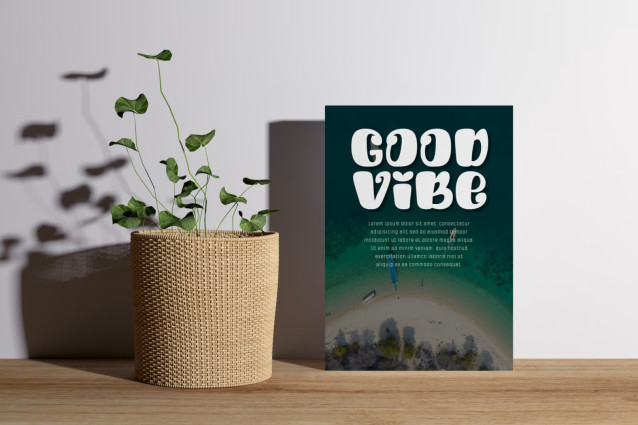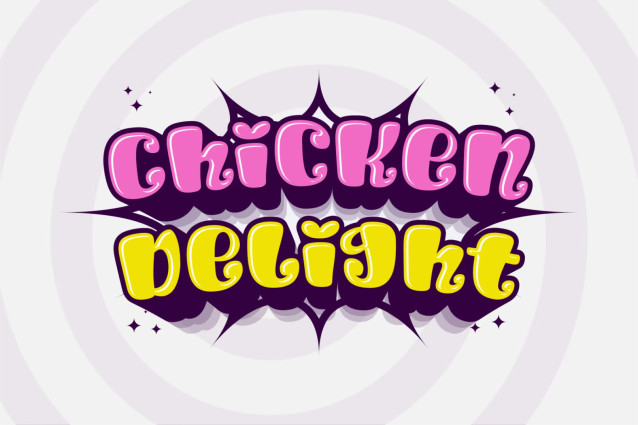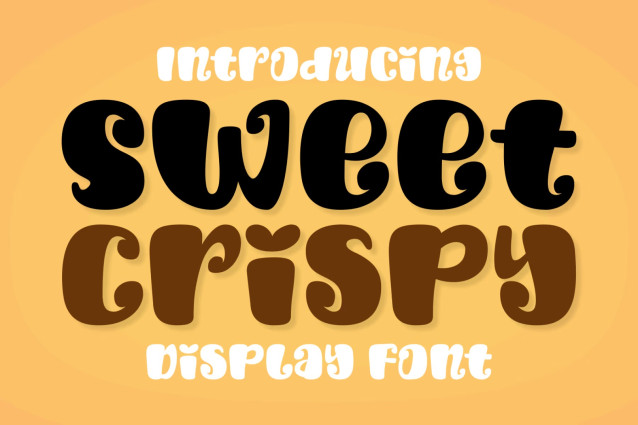
Sweet Crispy Font
Sweet Crispy is a bubbly, cute, and joyful display font. Its cheerful vibe is perfect for taking all your kid-friendly designs to the next level. You can also use it for posters, t-shirts, stickers, or even eye-catching, trendy social media posts!